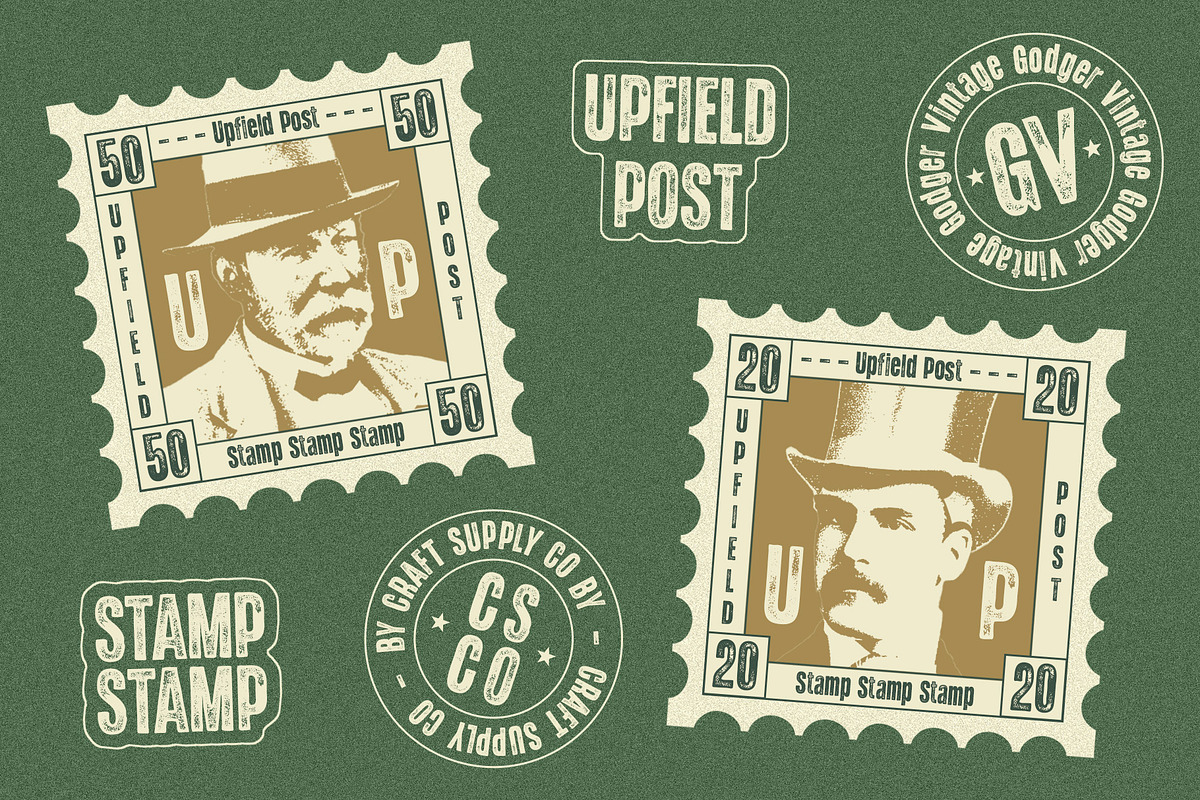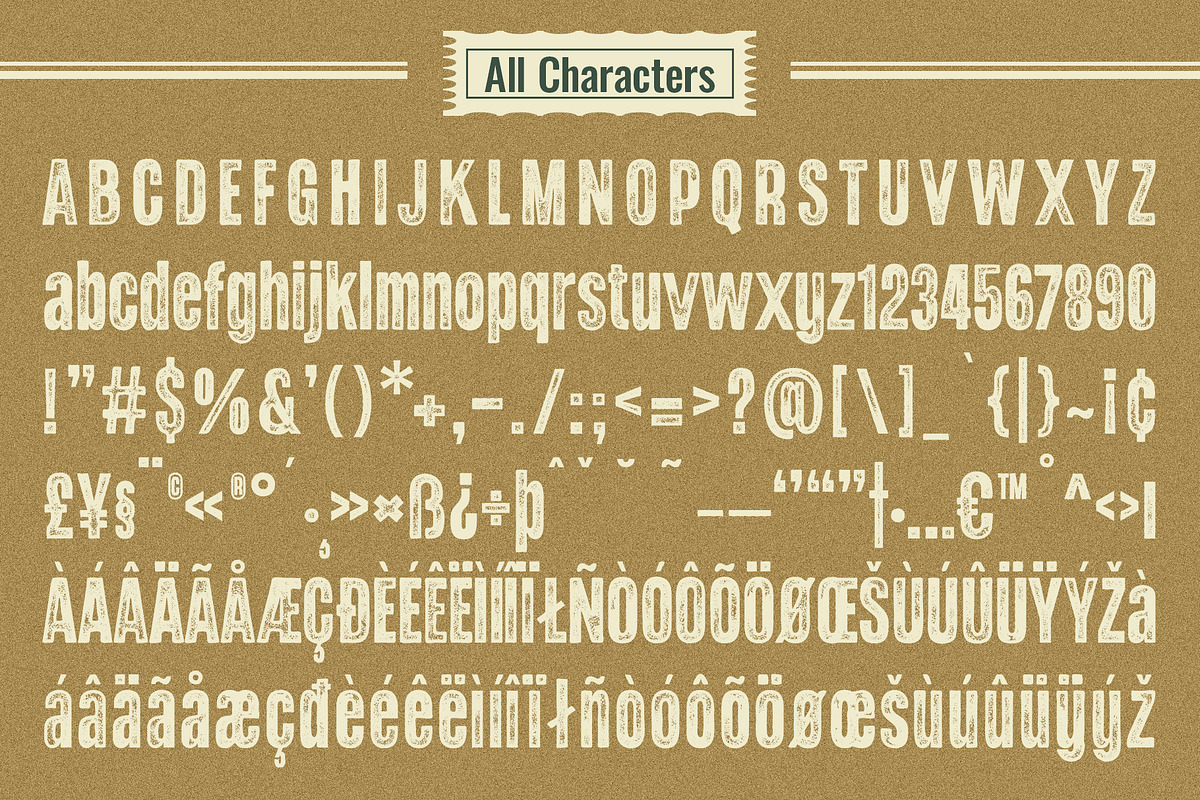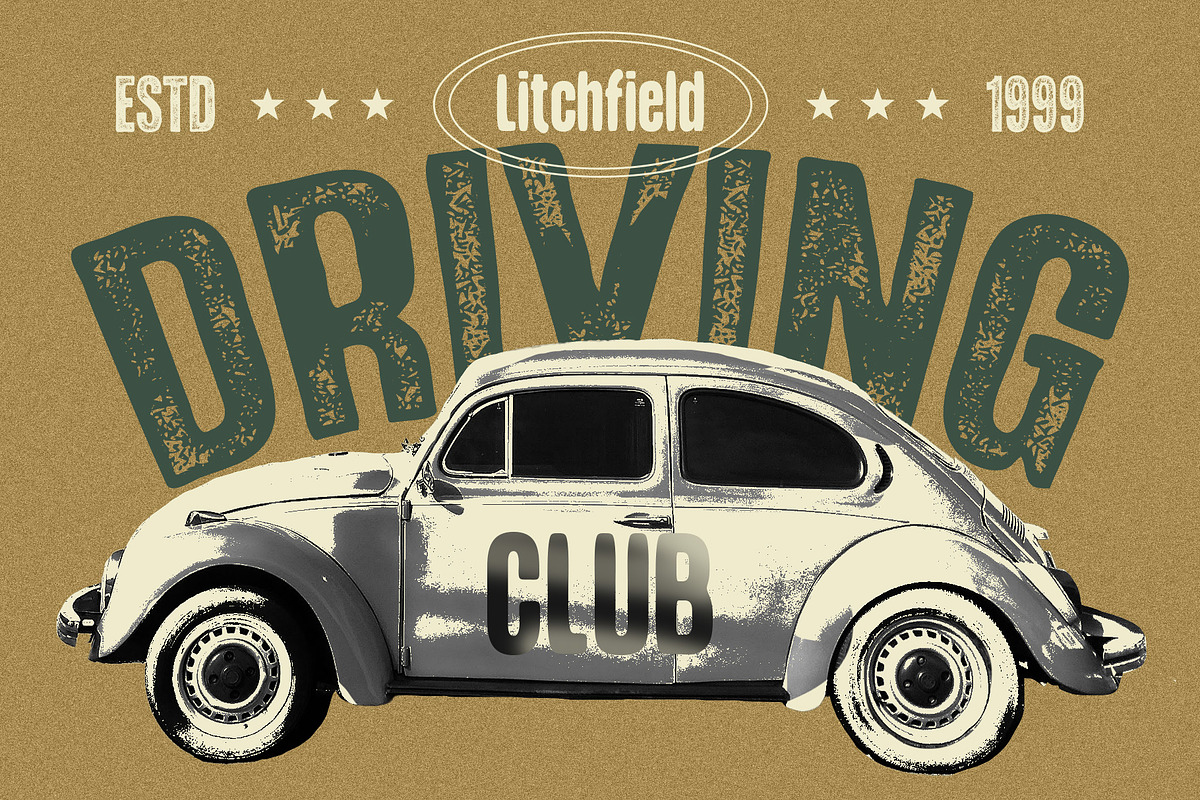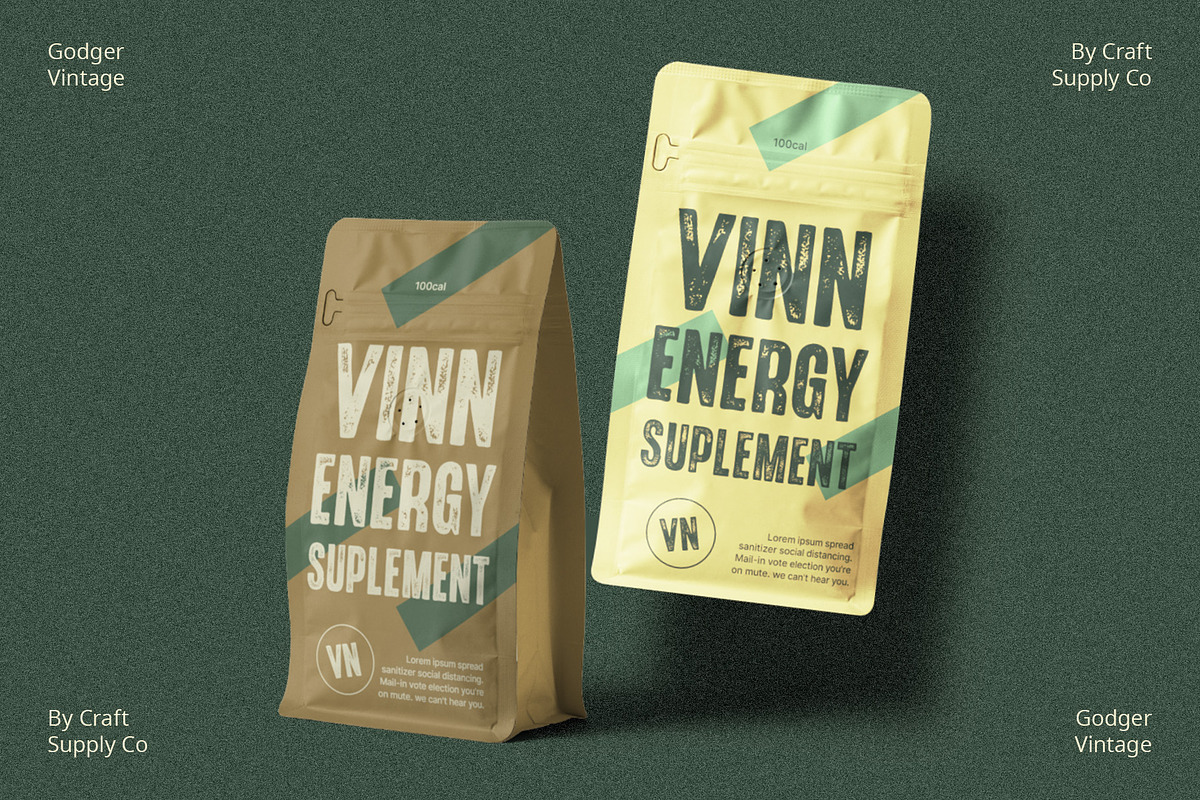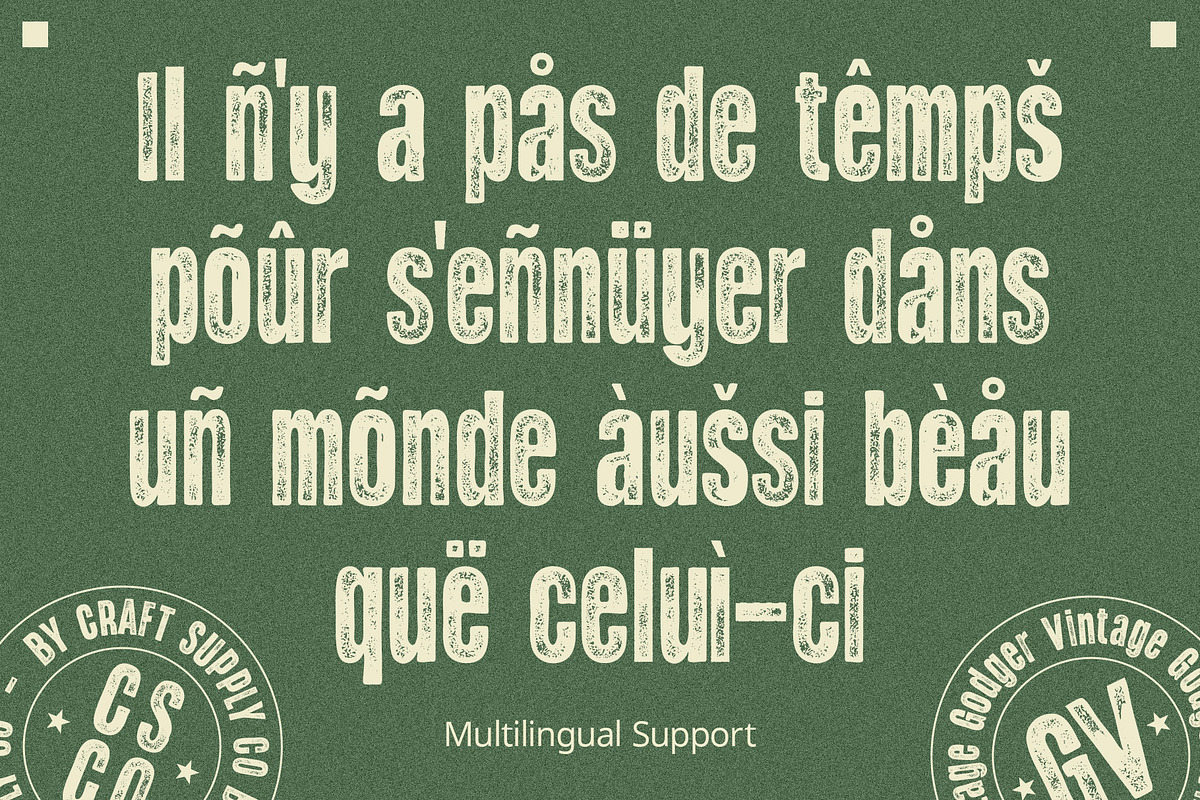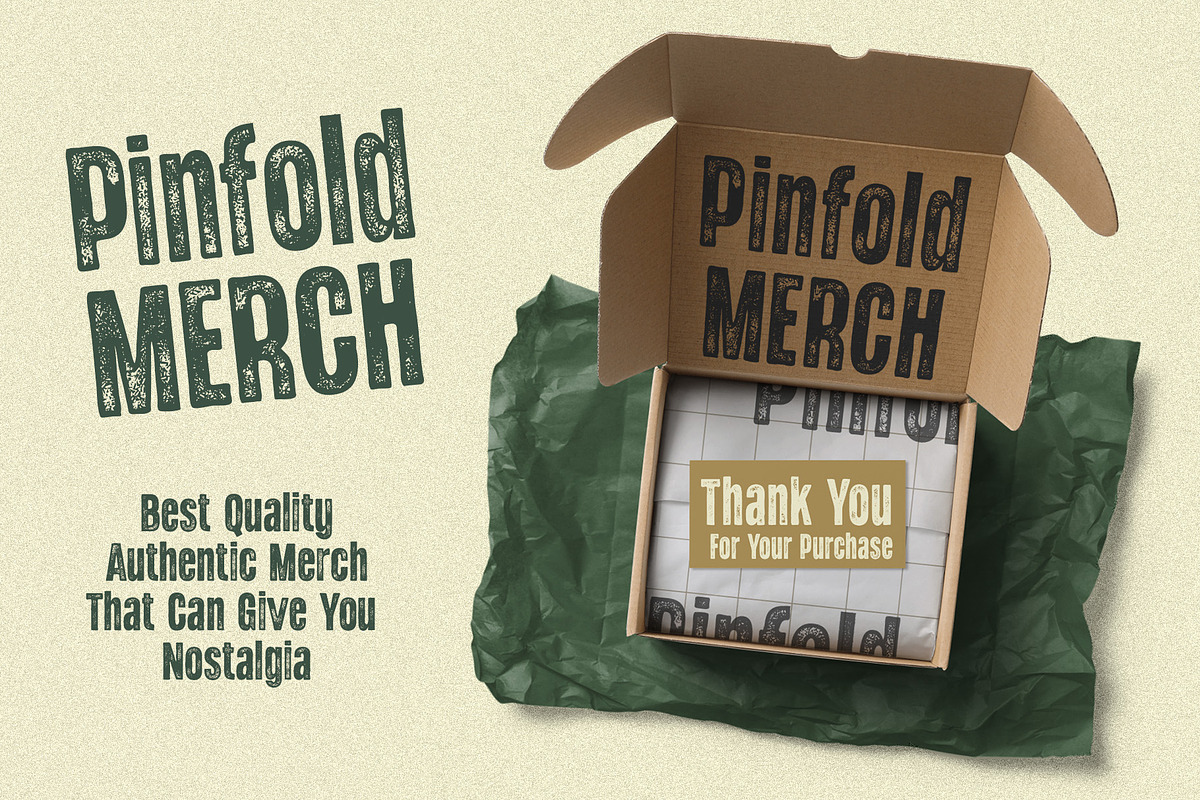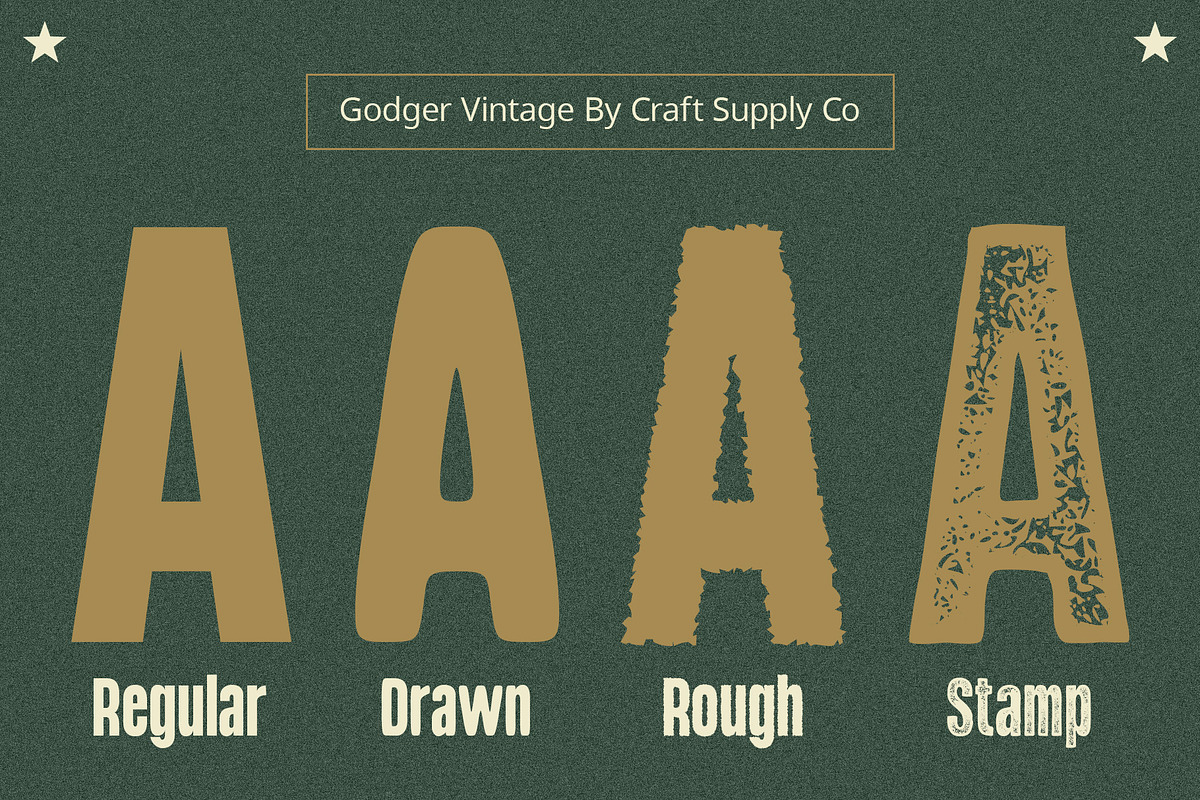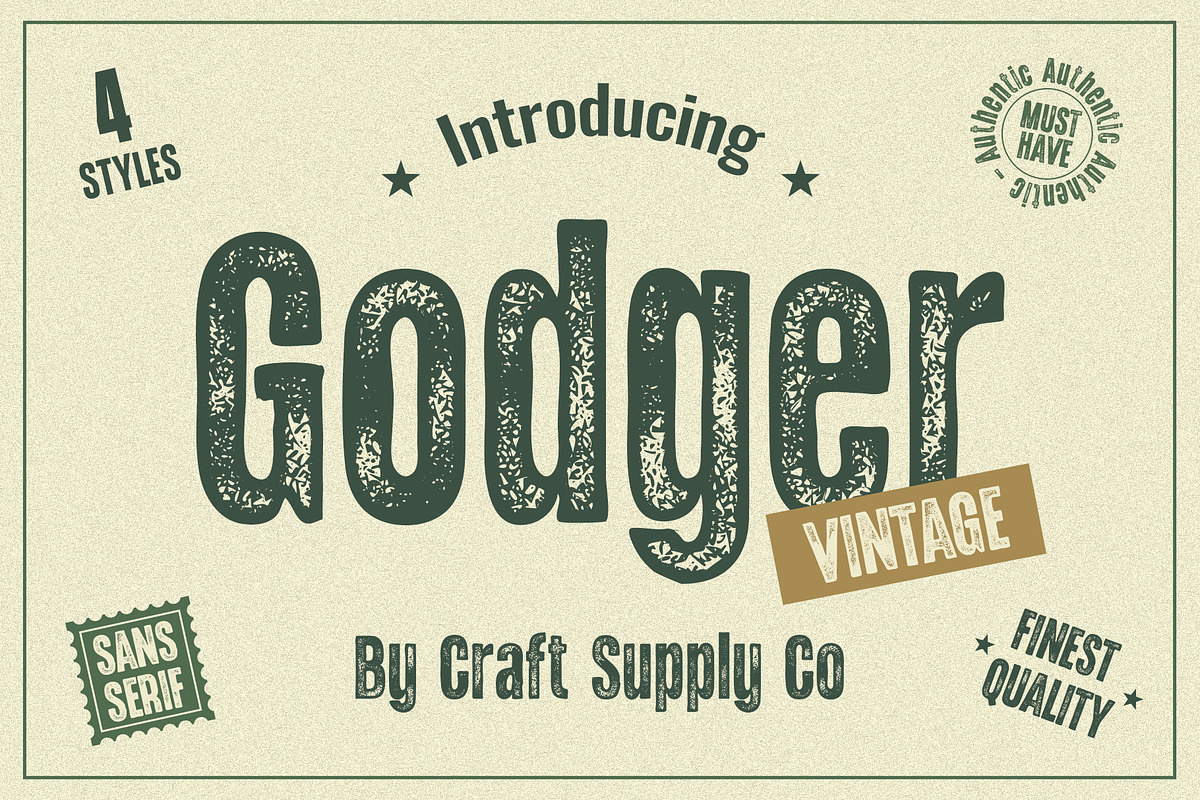
Godger Vintage
Godger Vintage – Timeless Bold Sans Serif for Vintage Vibes
Bold Nostalgia
Godger Vintage, a bold sans serif font, seamlessly captures the essence of nostalgia, ideal for vintage-inspired designs. Its robust strokes evoke a timeless aesthetic.
Versatile Design
Crafted for various display applications, Godger Vintage adapts effortlessly, enhancing the vintage charm in logos, posters, and other visual elements.
Distinctive Elegance
The bold simplicity of Godger Vintage adds a touch of distinctive elegance to your projects, ensuring a standout presence with every character.
Captivating Retro Vibes
Godger Vintage goes beyond type; it embodies captivating retro vibes. Its bold form and vintage flair create a lasting impression, making your content visually appealing.
In essence, Godger Vintage stands as a versatile and timeless tool for vintage aesthetics. With bold nostalgia, versatile design, distinctive elegance, and captivating retro vibes, it’s the perfect choice for infusing a touch of the past into your contemporary projects. Whether it’s a logo, poster, or any visual content, let Godger Vintage bring your vintage-inspired vision to life with bold and timeless charm.
- Godger Regular
- Godger Drawn
- Godger Rough
- Godger Stamp